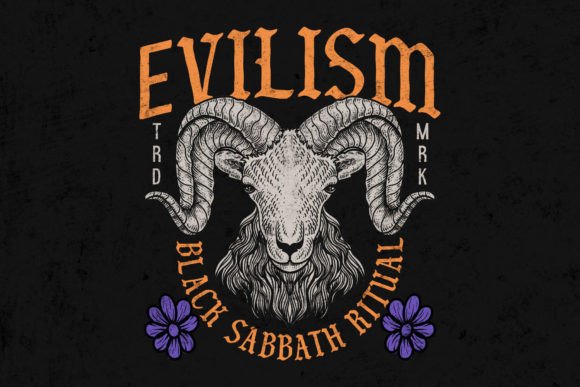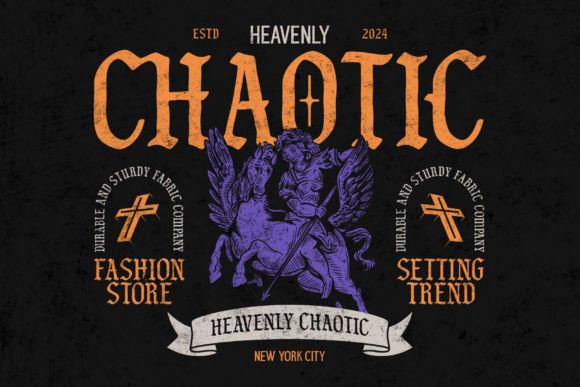
Black Chorola Font
Black Chorola Typeface: A Bold Vintage Blackletter with a Rough Edge
Unleash the power of old-world charm with Black Chorola Typeface, a striking blackletter font inspired by vintage design with a raw, textured twist. Perfect for creating bold statements, this font evokes the elegance and grit of historical typography, making it ideal for branding, posters, logos, packaging, or any project that calls for a timeless yet rugged aesthetic.
With an expansive character set, Black Chorola gives you the creative freedom to craft any message. Add flair to your designs with beautifully designed swashes and unique ligatures, enhancing every letter with a touch of sophistication.